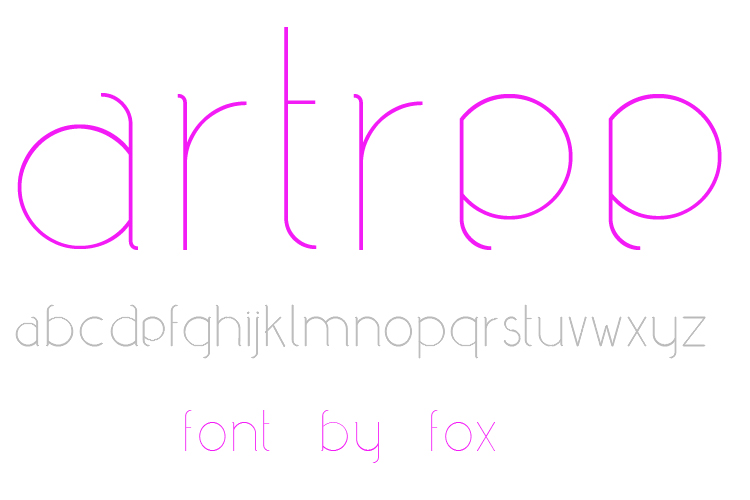
Here is another free font that has been sat on my computer for ages.....
Probably didnt post it because it not bold enough.
Here is another free font that has been sat on my computer for ages.....
Probably didnt post it because it not bold enough.